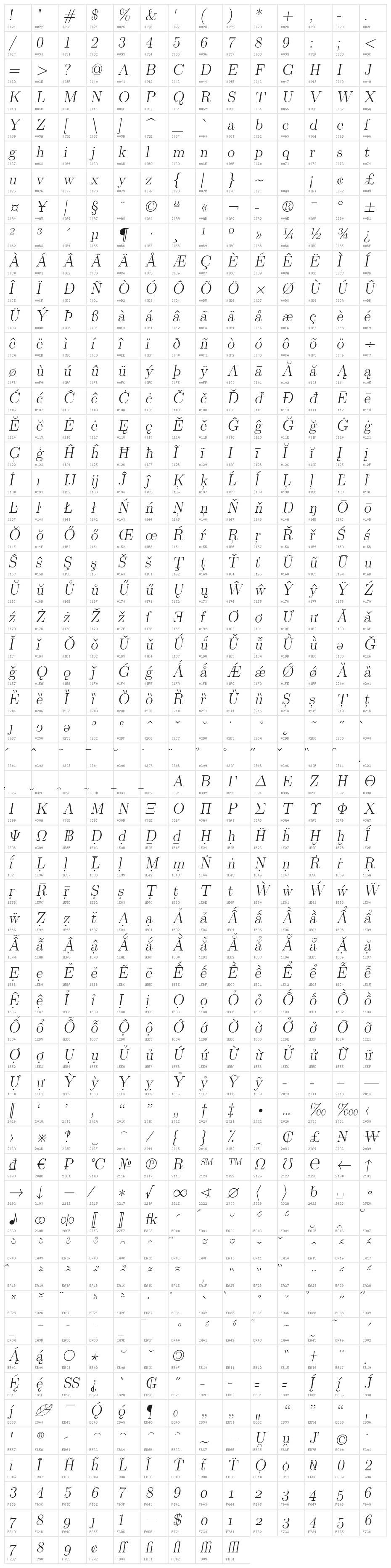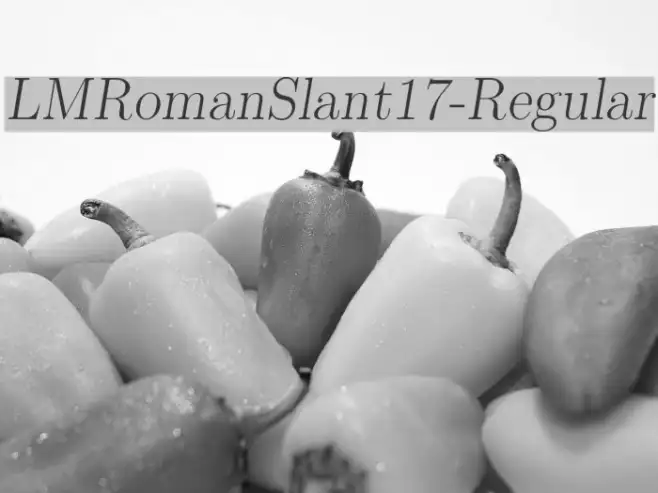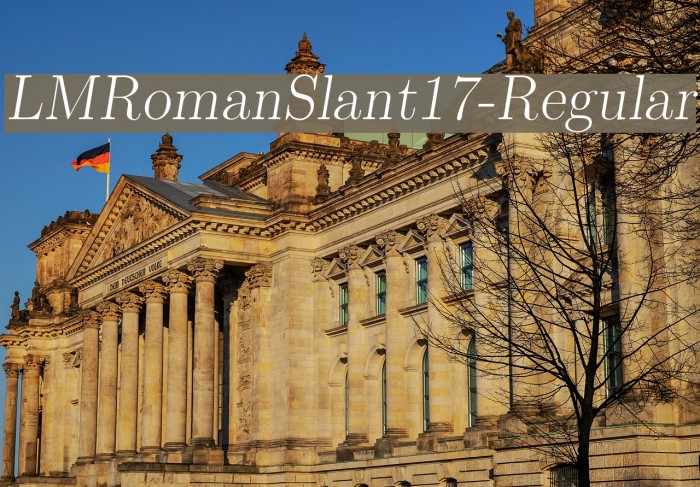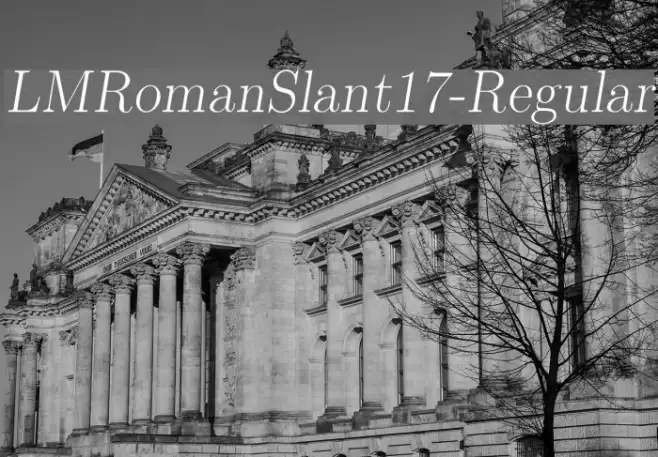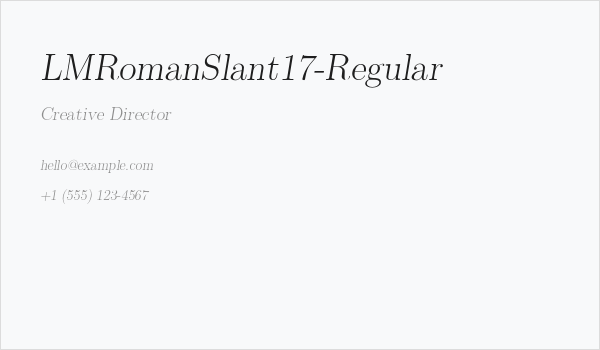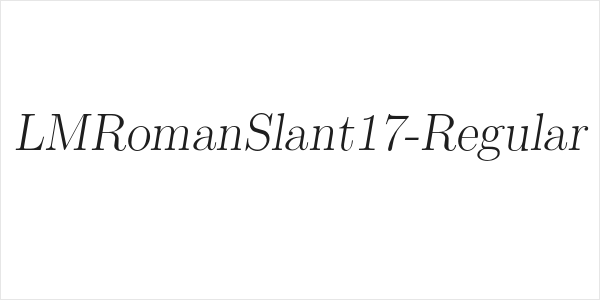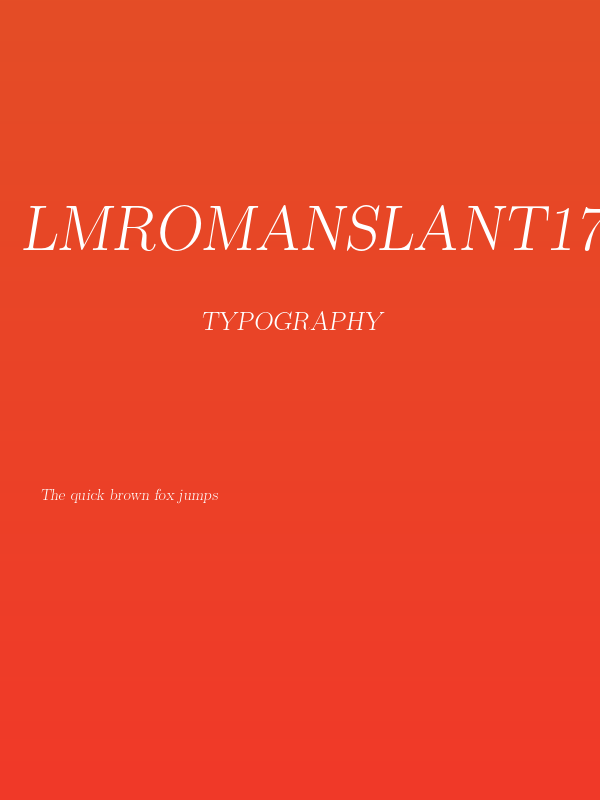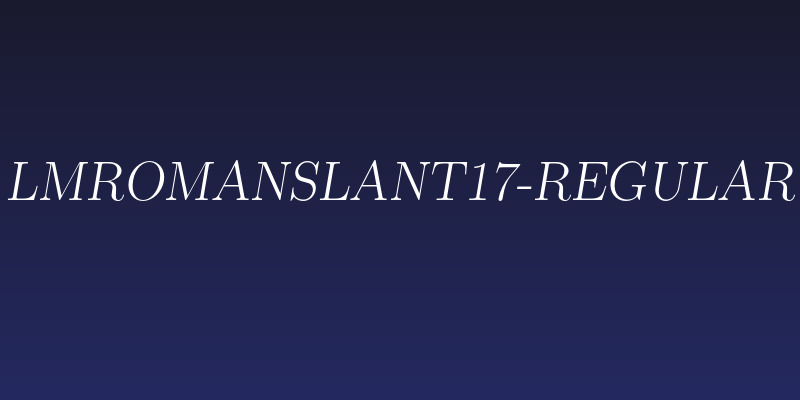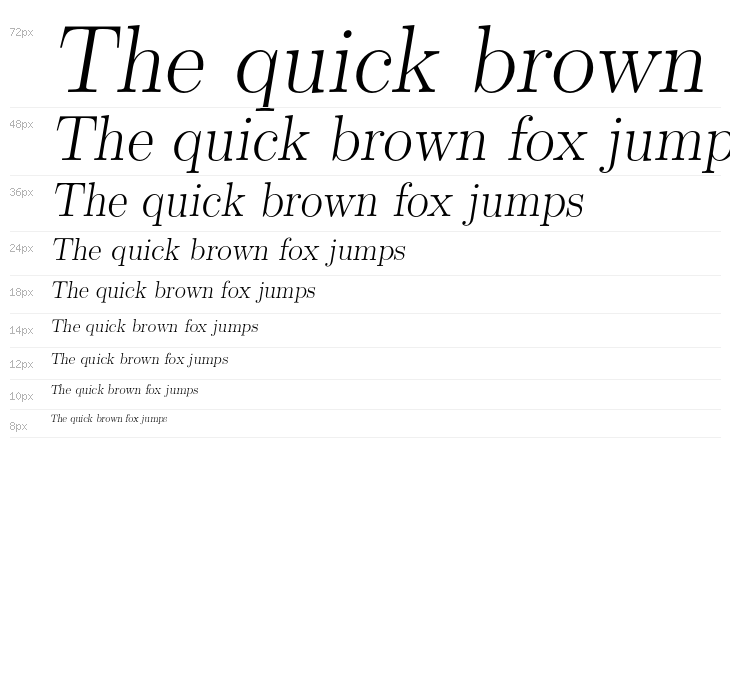
LMRomanSlant17-Regular Font
LMRomanSlant17-Regular Description
This font exhibits a classic serif style with a distinct slant, giving it an elegant and sophisticated appearance. The characters are well-defined with moderate contrast between thick and thin strokes, enhancing readability while maintaining a refined aesthetic. The uppercase letters are tall and commanding, while the lowercase letters are more delicate and flowing. Numbers are clear and proportional, ensuring legibility in various contexts. The special characters are designed with the same attention to detail, making them suitable for formal and professional use.
| Proposed Projects | Ideal for formal invitations, editorial design, branding for luxury products, and classic book typesetting. |